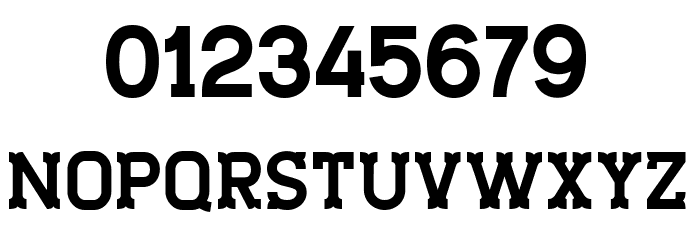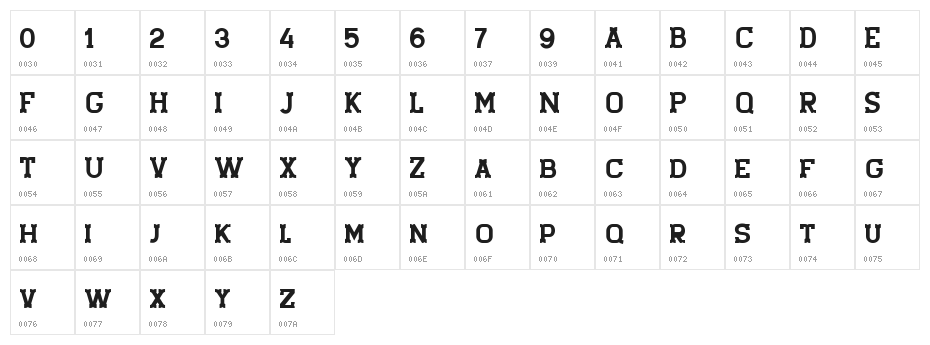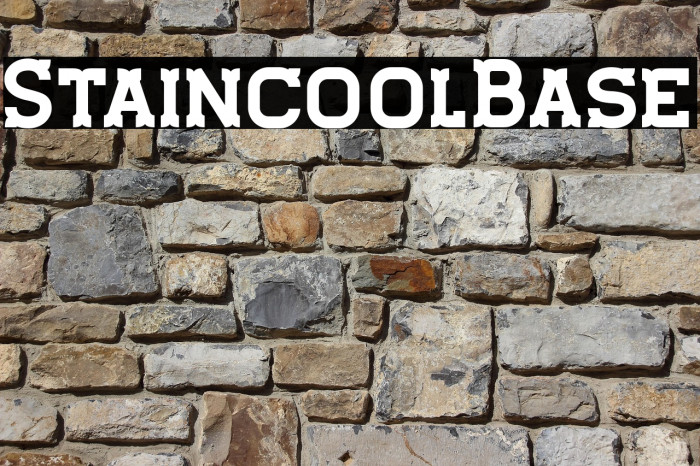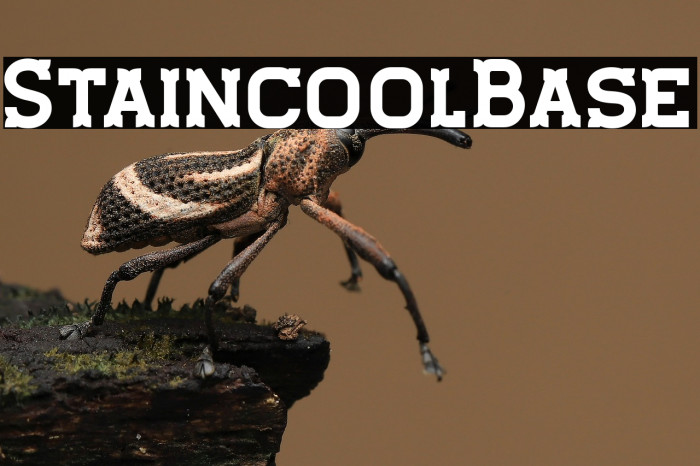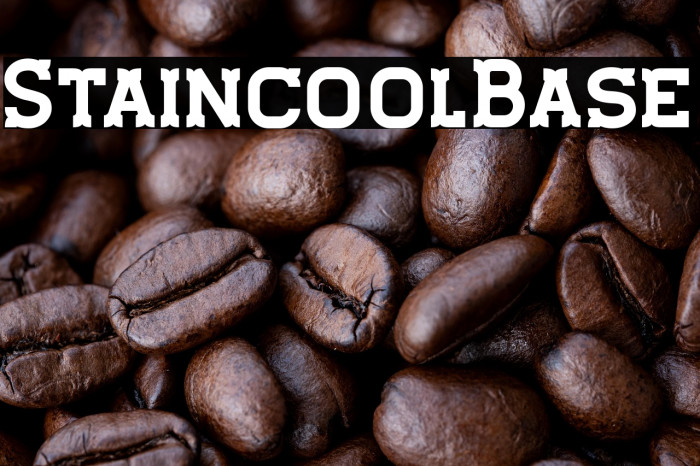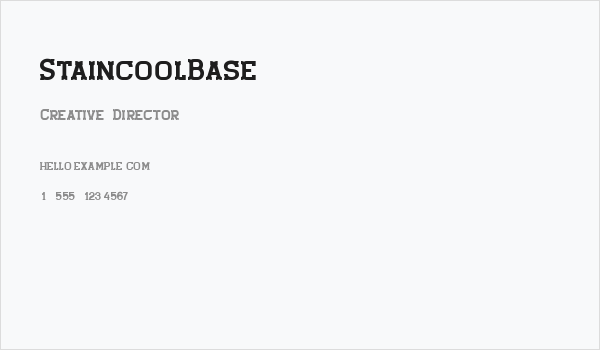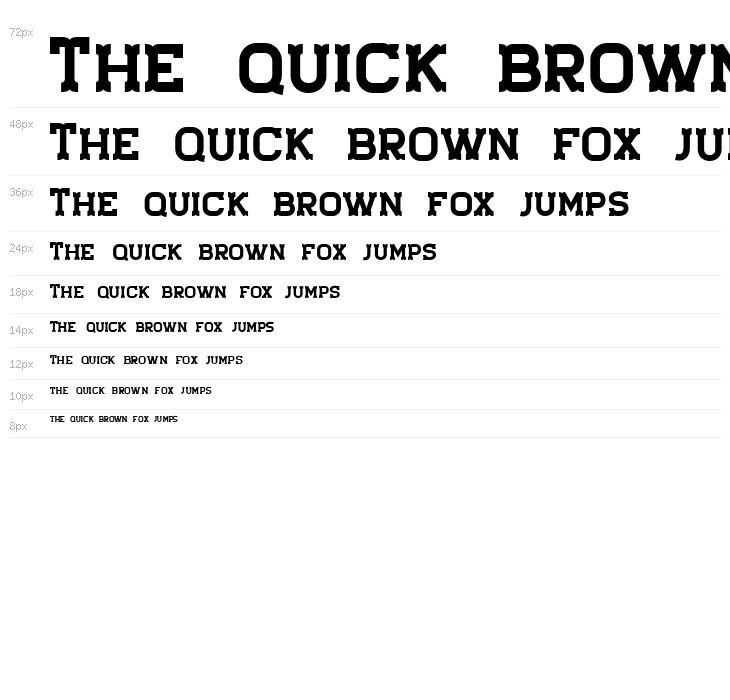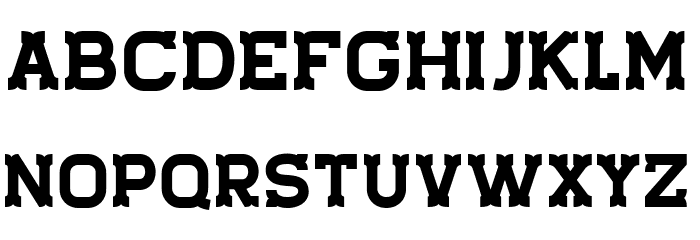
StaincoolBase Font
StaincoolBase Description
This font features bold, block-like characters with a strong presence, making it ideal for attention-grabbing headlines. The letters are uniformly wide, with a consistent stroke weight that gives it a sturdy and robust appearance. The design includes subtle serifs that add a touch of traditional flair while maintaining a modern aesthetic. The numbers are equally bold and clear, ensuring readability in various contexts. This font's style is reminiscent of vintage signage, yet it remains versatile for contemporary design needs.
| Proposed Projects | Ideal for posters, branding, packaging, and signage where a strong, impactful statement is needed. |